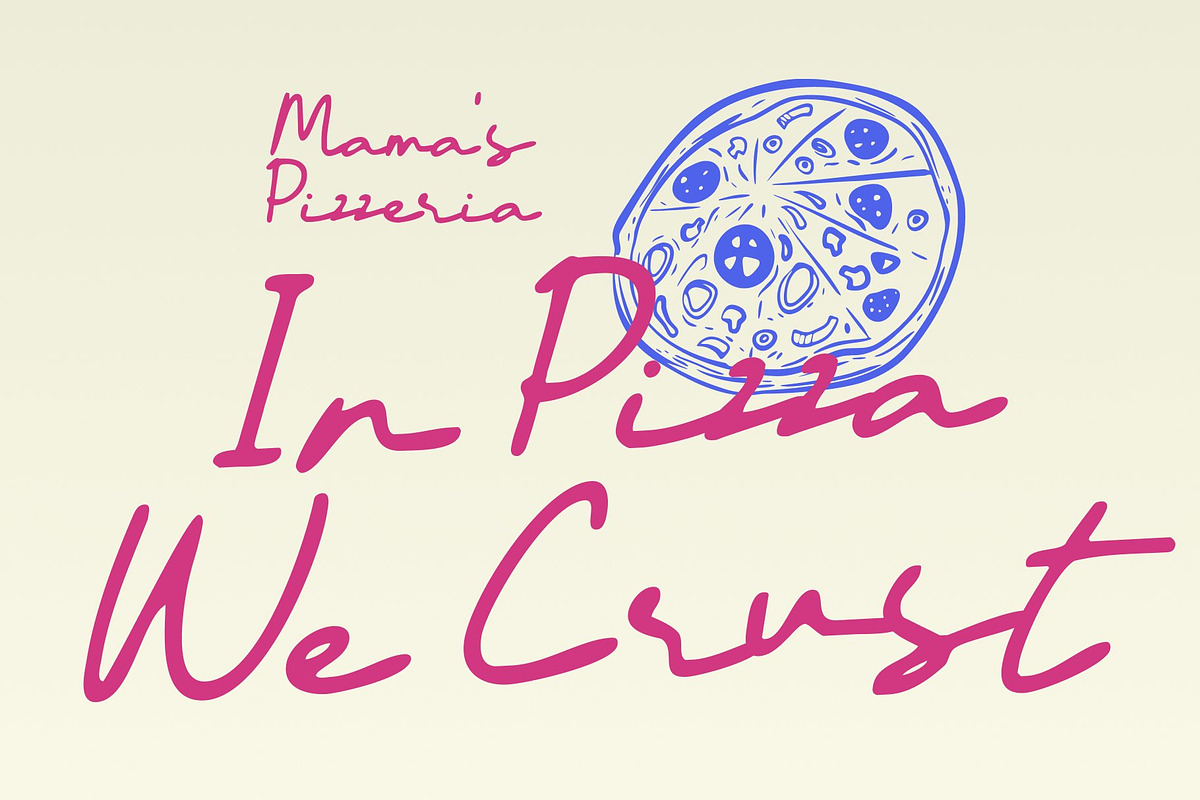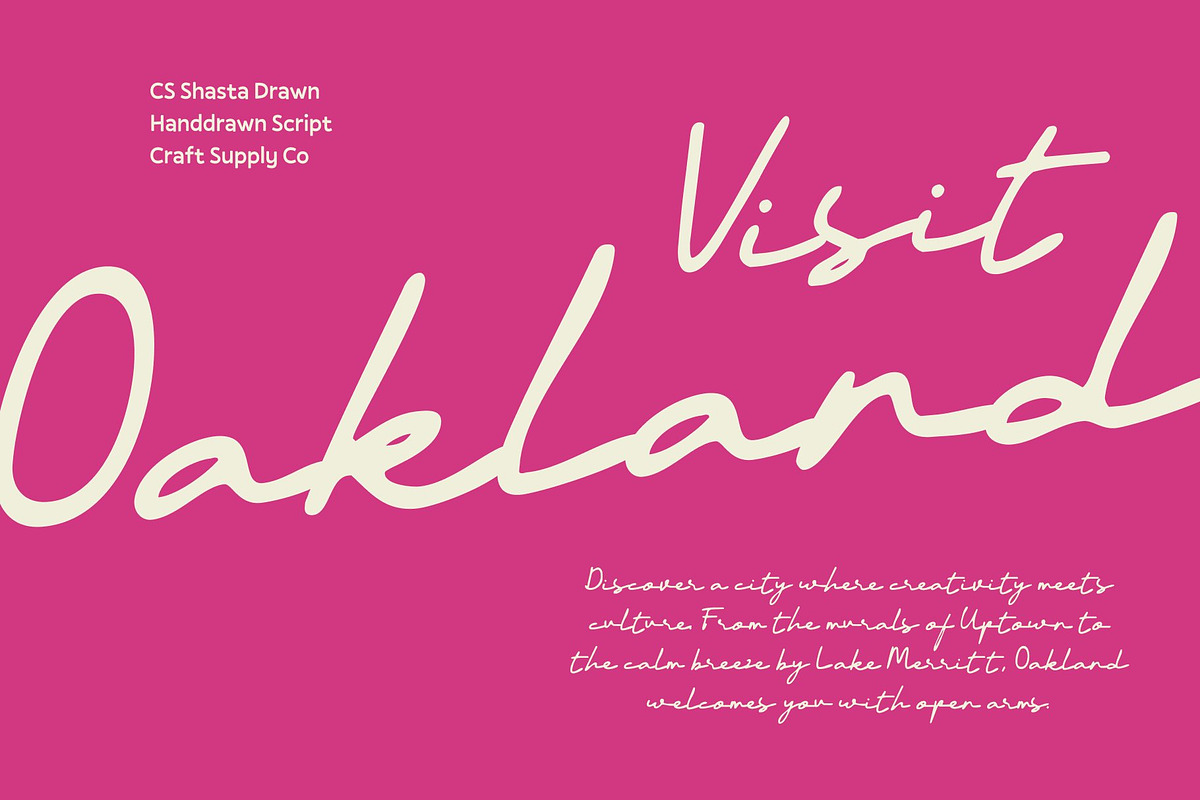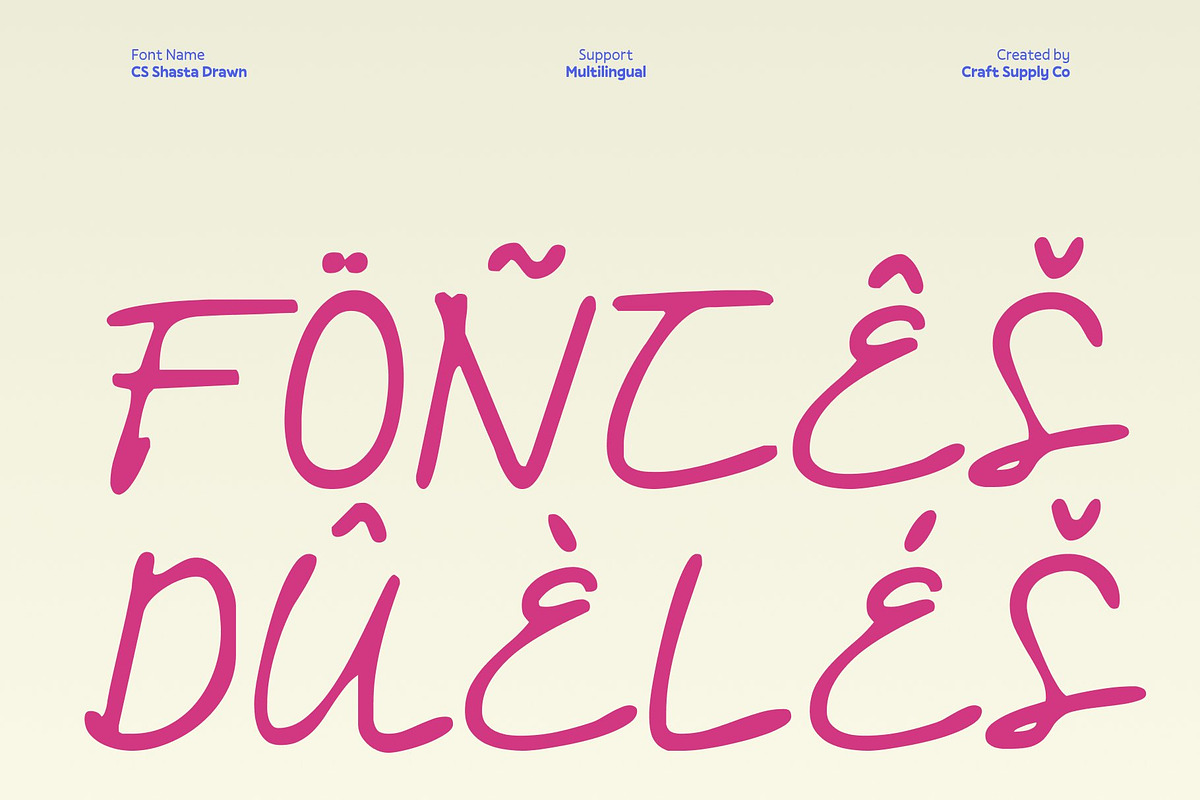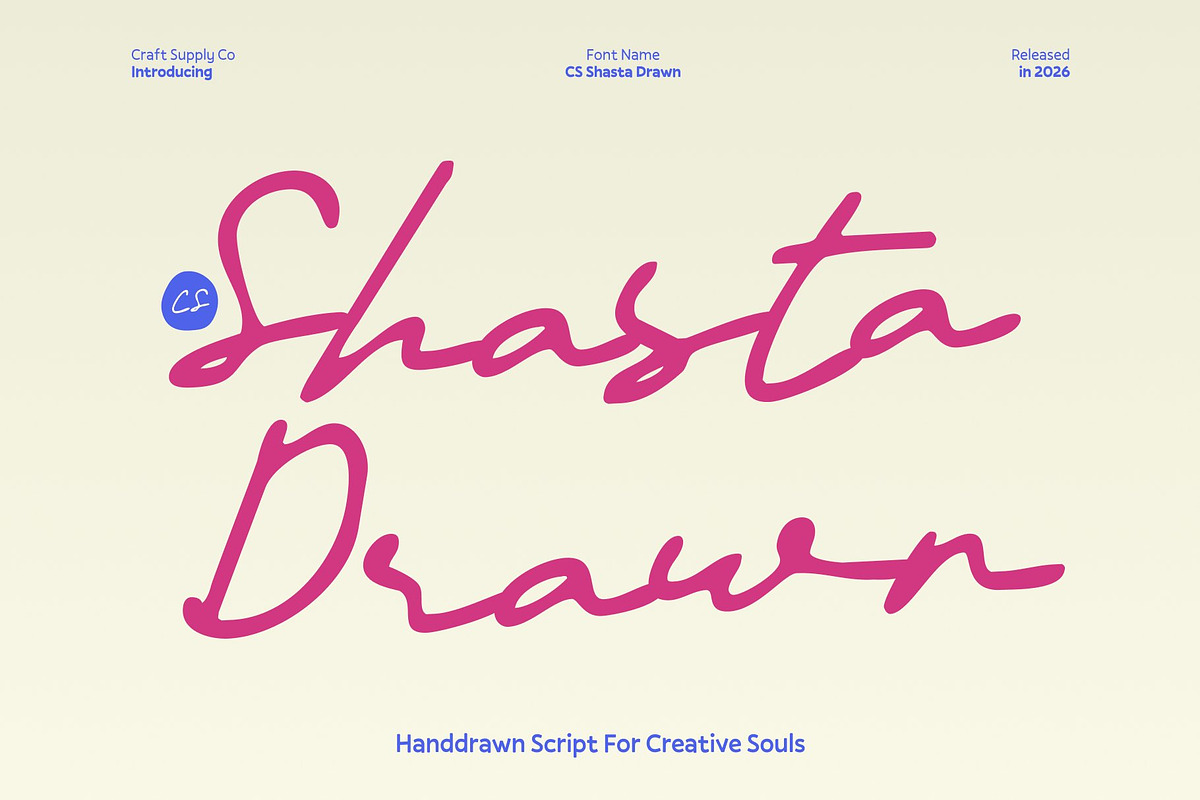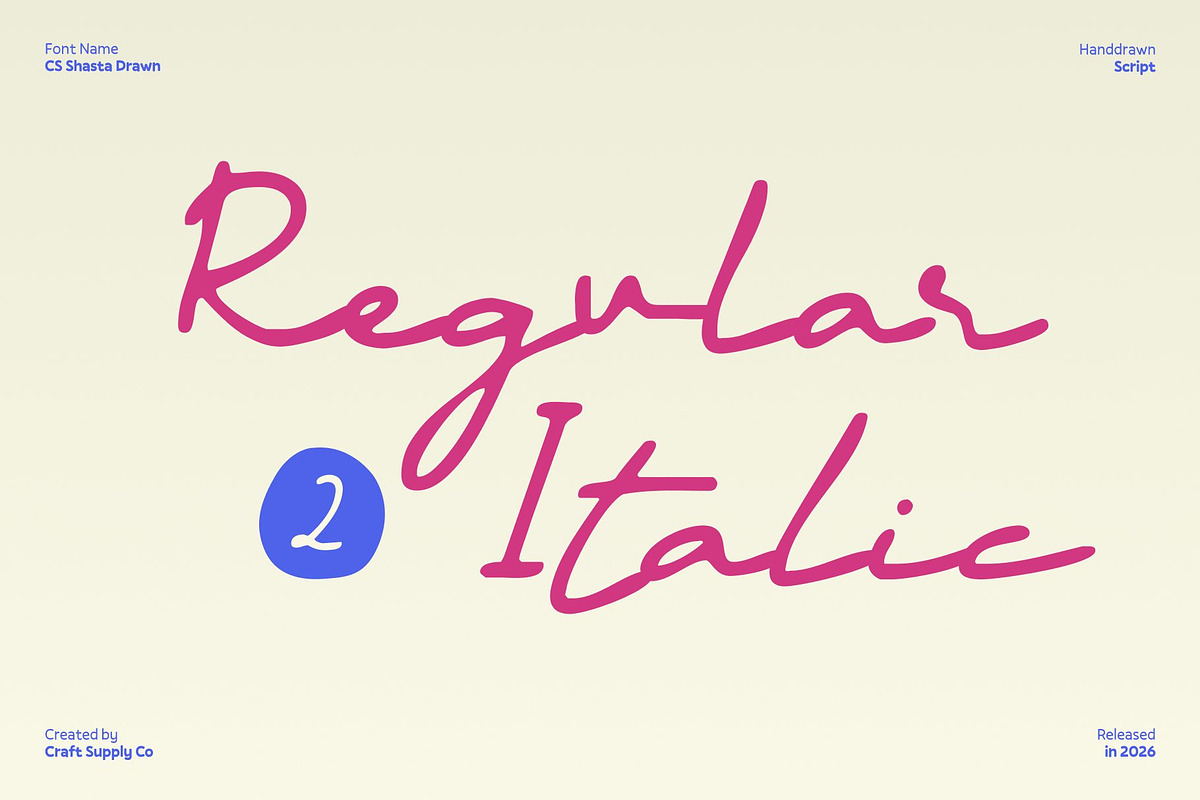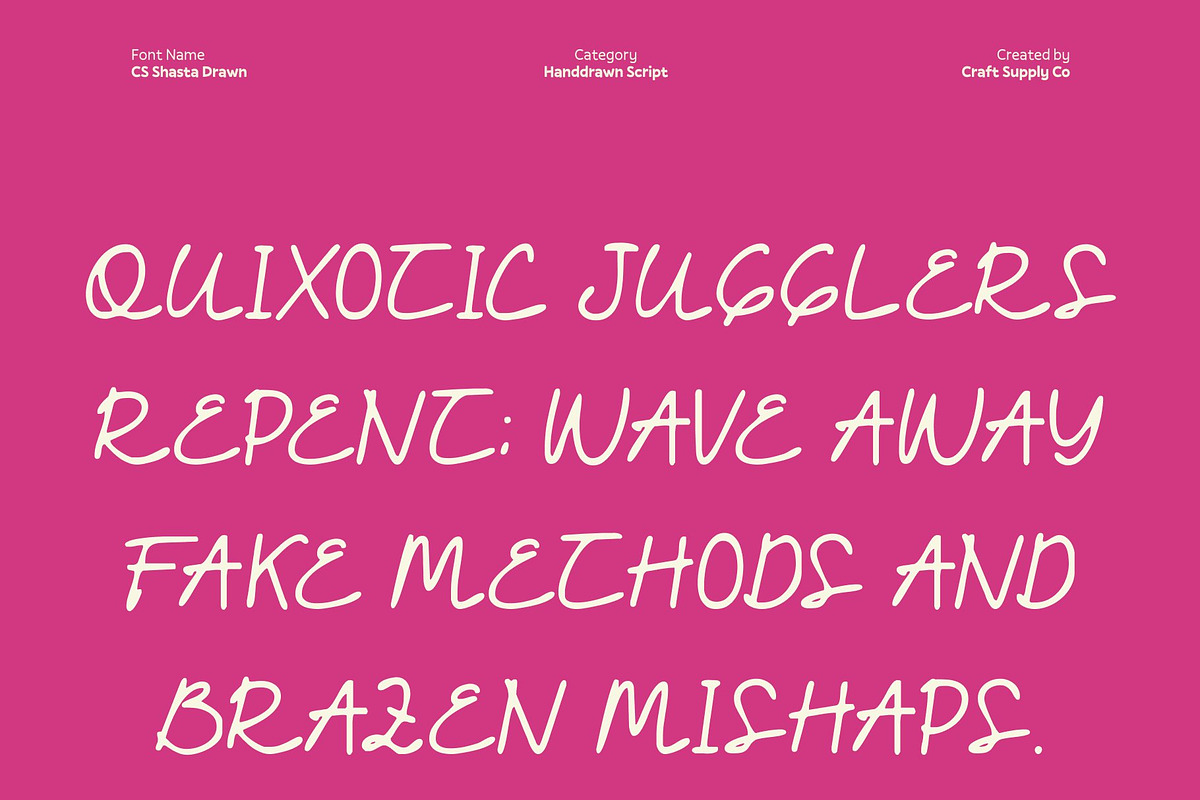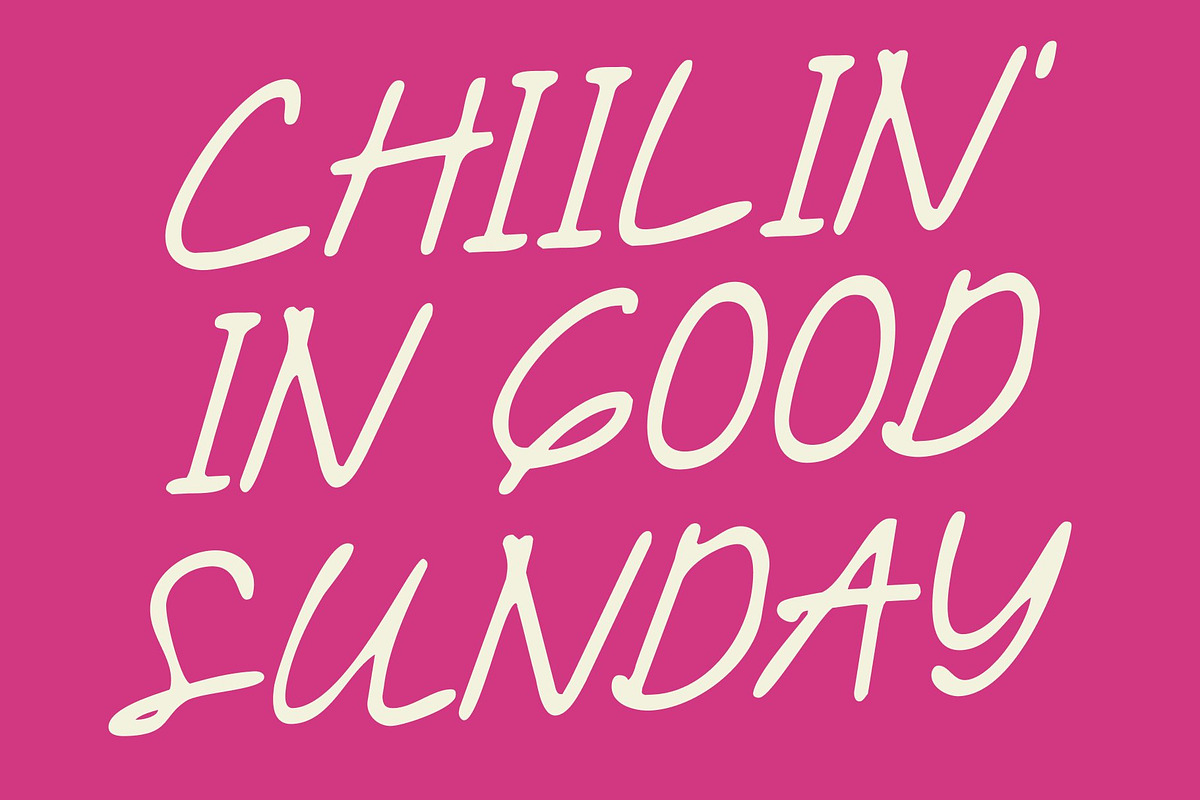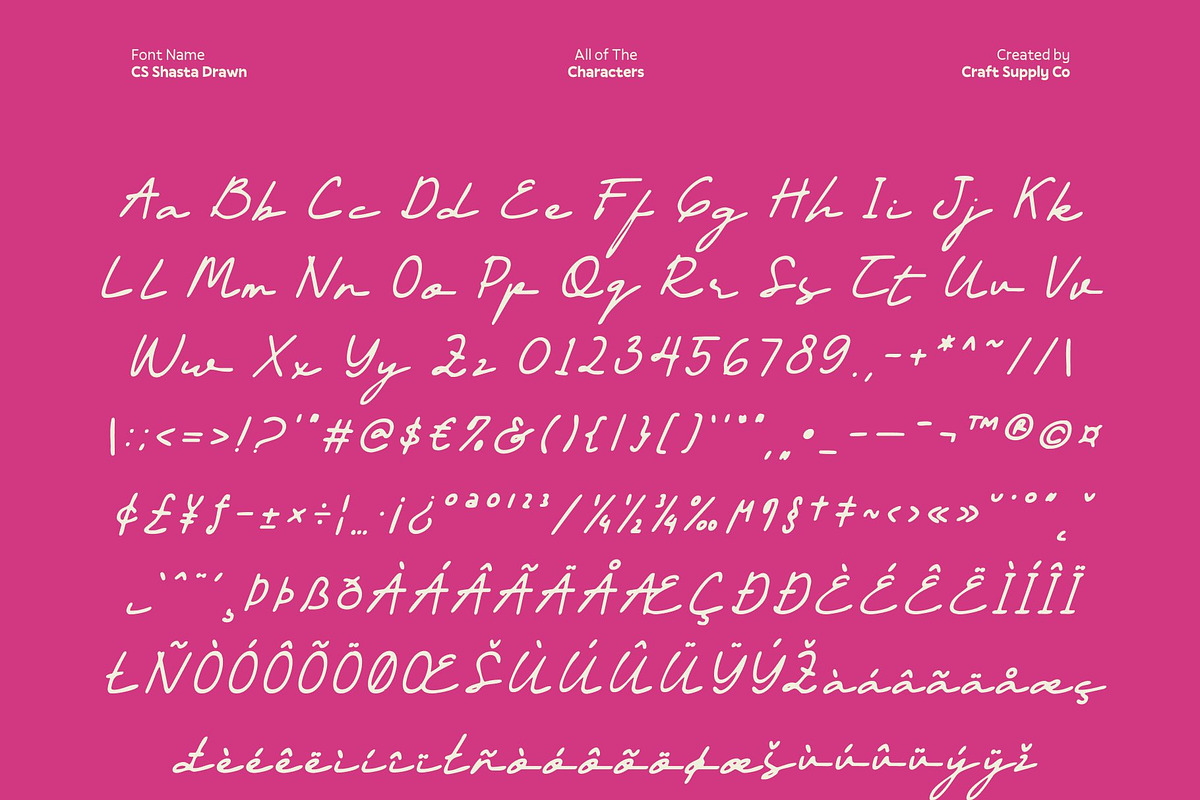
CS Shasta Drawn
CS Shasta Drawn – Handwritten Script Font with Signature Elegance
Authentic Handwritten Flow This is a sophisticated handwritten script font that captures the natural rhythm and charm of personal signatures. Each stroke carries a handcrafted texture, giving your designs an organic and artistic feel. The fluid movement of its letters adds personality and warmth, making every word appear unique and alive.
Signature Style with Distinctive Character Designed to emulate elegant, flowing handwriting, this font features graceful curves and subtle variations that mimic a real signature. The drawn effect enhances its individuality, giving each letter a handcrafted, artistic touch that elevates the overall aesthetic and creates a memorable typographic identity.
Versatile for Luxury and Creative Design Perfect for logos, branding, invitations, and editorial highlights, this font blends professional polish with expressive charm. Its textured script adds depth and sophistication, allowing designers to achieve a high-end, yet approachable look that works seamlessly across both digital and print applications.
Ideal for Premium Projects and Personal Branding From fashion branding and luxury stationery to creative packaging and social media visuals, this font transforms any design into a signature-worthy statement. Its combination of elegance, fluidity, and hand-drawn character ensures every project exudes style, personality, and timeless sophistication.
- CS Shasta Drawn Regular
- CS Shasta Drawn Italic